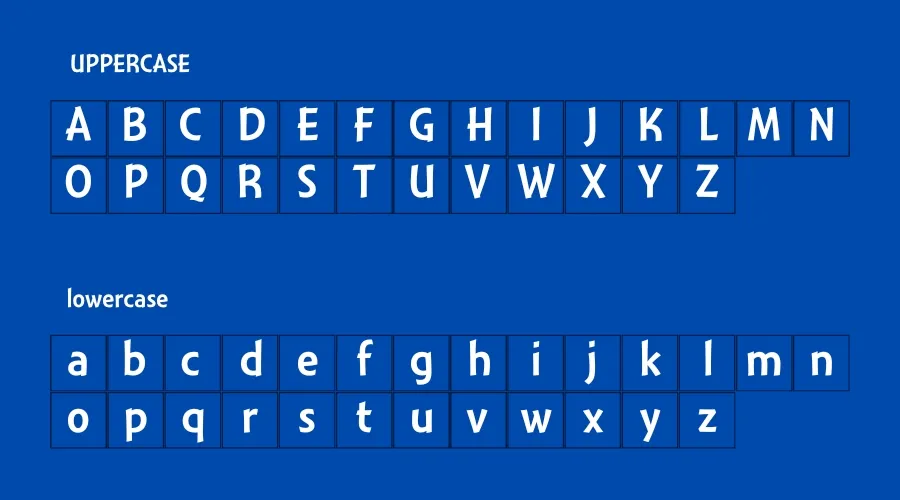
About Montara Gothic Font
Montara Gothic Font is designed by Jim Parkinson it is a sans serif typeface This appealing font possesses a free servicing of graphical text creation tools. We provide the free version here, which you can view in the downloading segment.
The text style may be an incredible choice to extend the noticeable quality. Although the typography is conventional, the essential components are great. It is an incredible textual style to create a fun design. This typeface is very similar to the dm sans font.